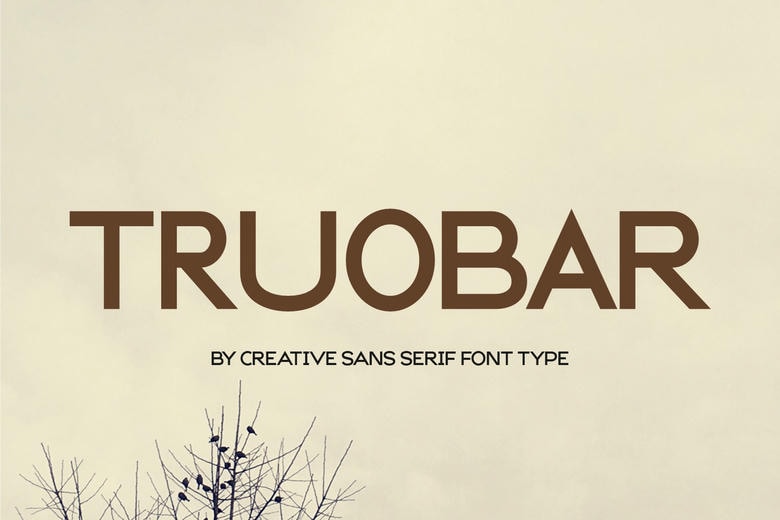
Truobar is a clean-cut typeface that belong to sans-serif typeface family since it is a typeface of elegant and minimalistic design. It is perfectly fit for any modern logo design, magazines, newspaper, and website design, etc due to its simple and proportional layout. Truobar is developed as a versatile cut that can be used for both headlines and running text.
Truobar Sans Serif Font